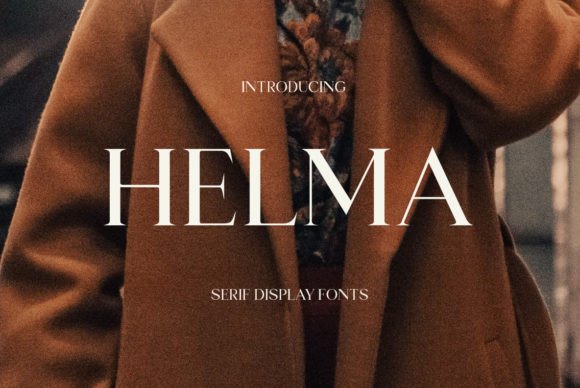
Introducing Helma Font, the perfect blend of elegance and refinement for your design needs! Created by yukitacreative, this display serif typeface has been explicitly designed for high-resolution displays in digital and print media. Its sophisticated appearance and perfectly balanced proportions make it ideal for title text, corporate branding, and any design applications that require a touch of sophistication.
With Helma Font, you can effortlessly add a touch of class to your projects. The font family's serif design will add a sense of tradition and timelessness to any design, while its modern aesthetic will bring it firmly into the 21st century. The font's clean lines and smooth curves make it incredibly legible, even at smaller sizes, ensuring that your message is always clear and easy to read.
The versatility of Helma Font makes it an excellent choice for a wide variety of applications. Use it for your next digital or print project, and watch as it transforms the look and feel of your design. Its stylish appearance will instantly elevate any project and add a touch of sophistication that will impress even the most discerning of clients.